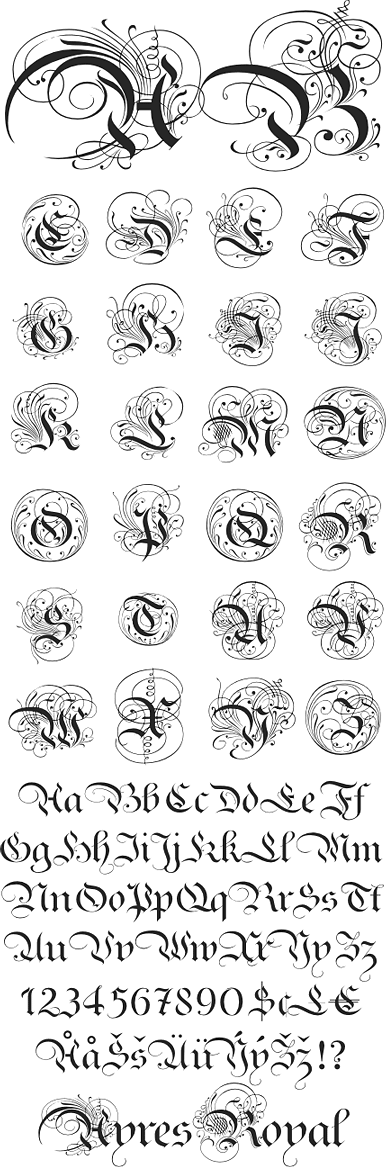
Ayres Royal (Wiescher Design)
I designed Ayres Royal to honour London’s famous calligrapher John Ayres (about 1700). He designed calligraphy examples called The Accomplished Clerk, that were meant to be for the office clerk. I doubt if there were many clerks in those times, that were able to write such beautiful letters. In order for the font to be of any use, I adjusted my Royal Bavarian Script to go together with the initials of John Ayres. The two fonts have to be used together, that’s why I am not selling them as singles. It would be bad style to use the font with the initials only. In some languages, such as German, there are too many capital words and the many heavily-decorated initials would make longer texts very hard to read. Your historical designer Gert WiescherFONTHAUS END USER LICENSE AGREEMENT